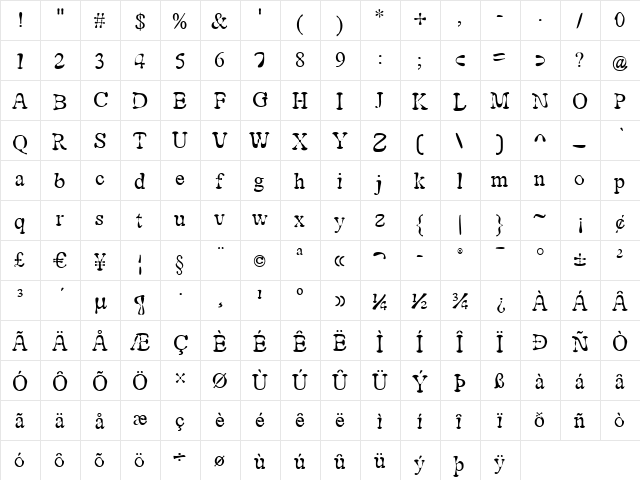
MerssITC Medium Font Preview
MerssITC Medium
MerssITC Medium Font Details
Design Context for MerssITC Typeface
MerssITC is a composed and adaptable typeface that performs quietly and consistently across a wide range of design contexts.